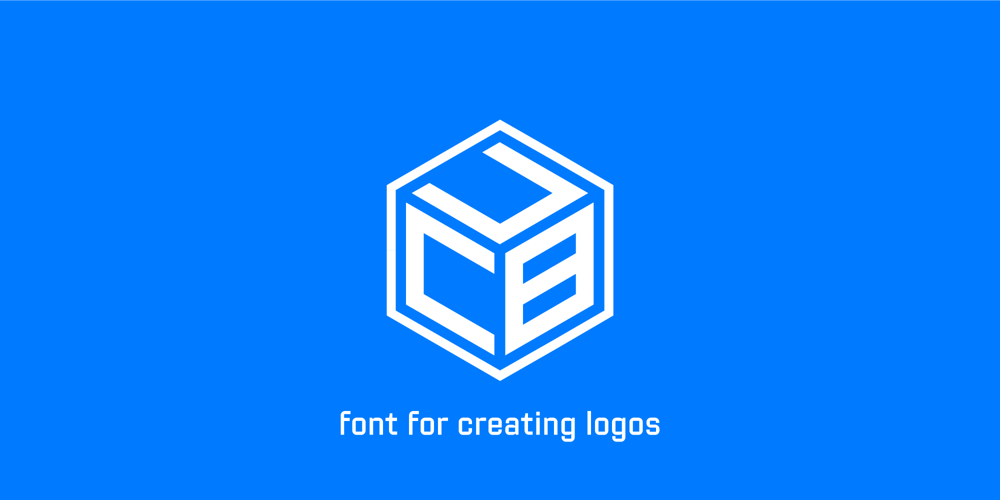
Cub Font Family was designed by Anton Kokoshka and published by Anton Kokoshka. Cub contains 1 styles and family package options. Cub- is an font file that allows you to create unique geometric logos. Its peculiarity is that you do not need to manually select letters in order to harmoniously arrange them in the shape of a cube. The font does this for you. You just need to type the abbreviation that you need and it will immediately be printed in isometric form. For alternate lettering, simply use uppercase. You can also create hexagonal patterns using this font.